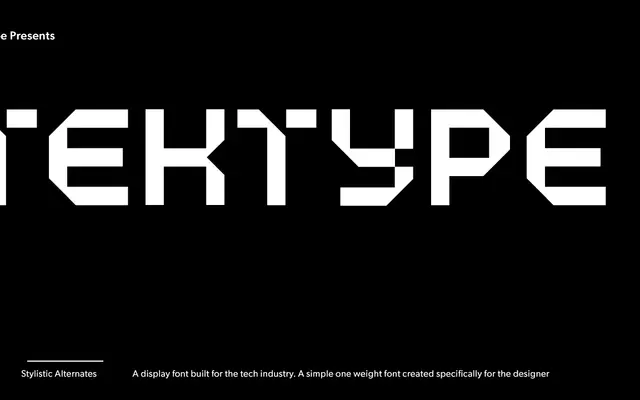
Tektype
A single-weight geometric display typeface from Arkitype with stylistic alternates that shift its character noticeably.
Available in one weight, Tektype carries a constructed, technical feel suited to display and identity work. The stylistic alternates, accessible via OpenType features, offer meaningfully different letter shapes for several key characters including A, B, C, D, E, F, P and R, giving designers control over the overall tone. Latin Extended coverage handles most Western European languages.
Tektype presents with a strong geometric character and alternates that suggest a technical or constructed aesthetic, placing it firmly in the display category with geometric underpinnings rather than conventional text-oriented grotesque or humanist traditions.